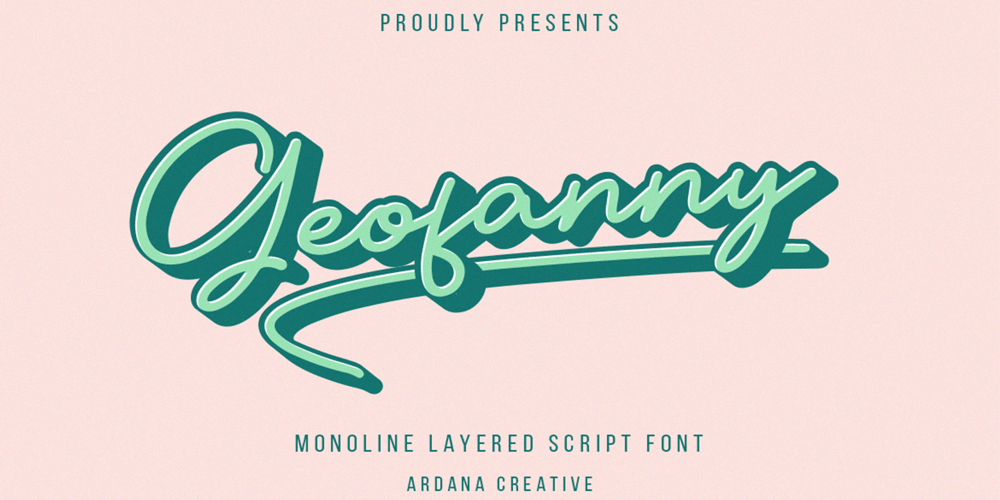
Geofanny
Geofanny font
Geofanny Font Family was designed by Ferry Ardana Putra and published by Ferry Ardana Putra. Geofanny contains 2 styles and family package options. Geofanny is clean monoline script font which has layered features and OpenType features. Use this typeface to make your design vintage-like. Not only that, you can also use this without layered font to make more feminine and cute design. This font good for vintage design, t-shirt, logo, labels, badges, posters, branding design, blog headers, signatures, quotes, fashion apparel, business card, stationery and many more.Geofanny features:A full set of upper & lowercase charactersNumbers & punctuationMultilingual language supportPUA Encoded Characters+244 GlyphOpenType FeaturesGeofanny includes:Geofanny Regular.otfGeofanny Extruded.otfTo enable the OpenType Stylistic alternates, you need a program that supports OpenType features such as Adobe Illustrator CS, Adobe Indesign & CorelDraw X6-X7, Microsoft Word 2010 or later versions. There are additional ways to access alternates/swashes, using Character Map (Windows), Nexus Font (Windows), Font Book (Mac) or a software program such as PopChar (for Windows and Mac).For more information about accessing alternative, you can see this link: http://adobe.ly/1m1fn4Y